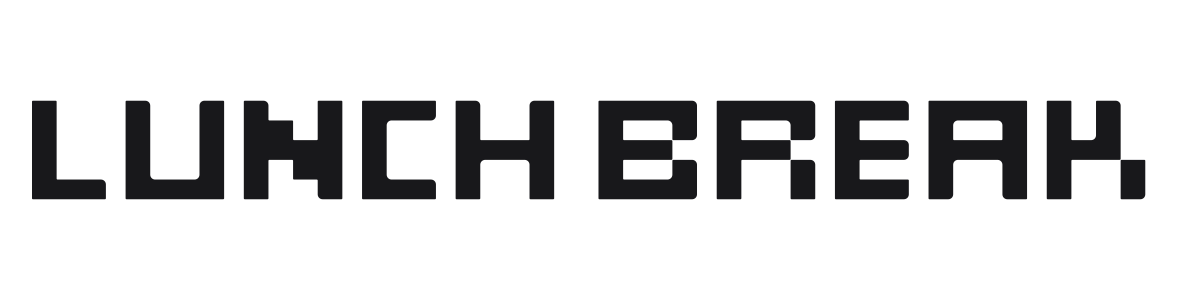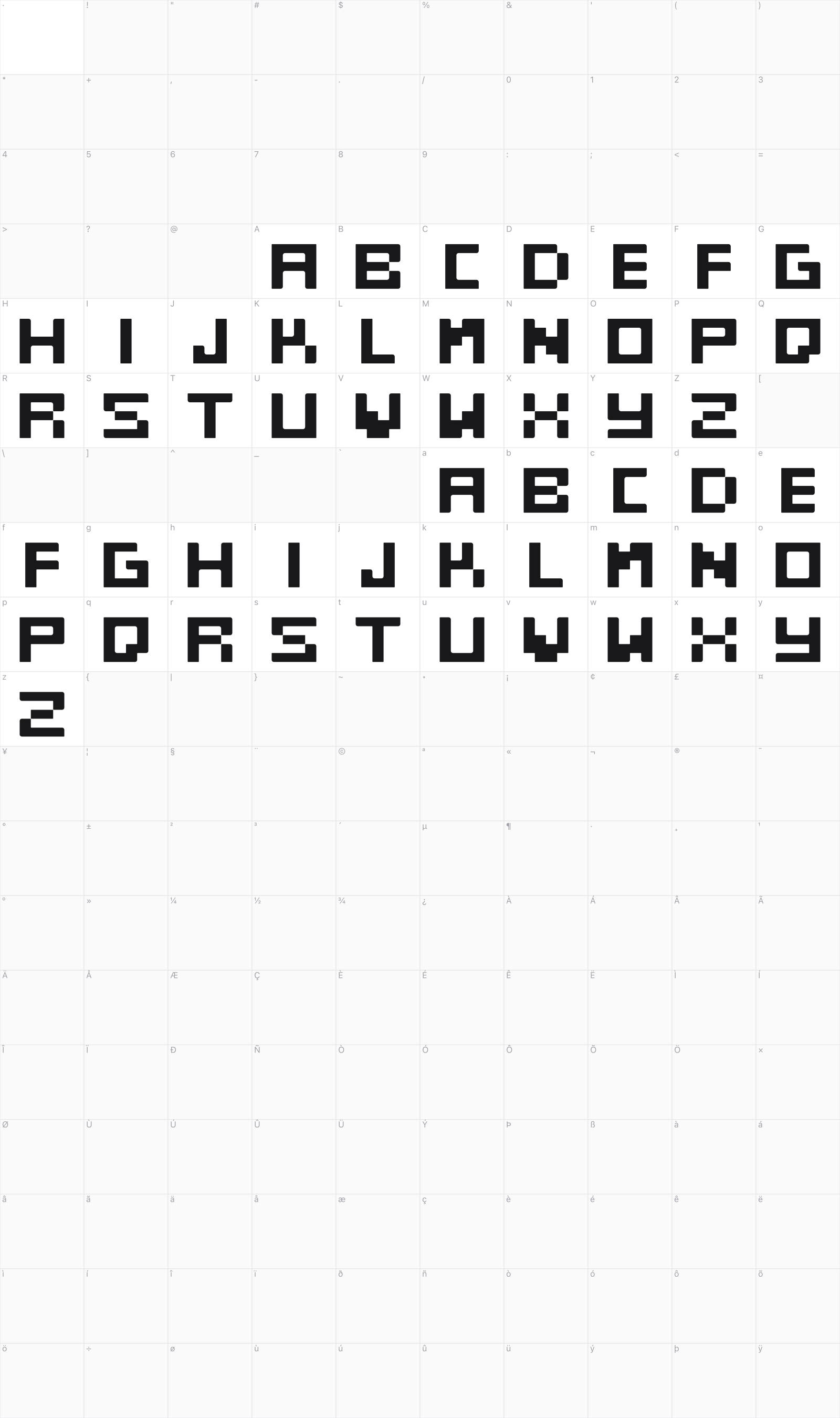
Lunch Break
Lunch Break is a chunky pixel font by Paul Kritzmire with bold, blocky uppercase letterforms built on a rigid geometric grid. The characters have that unmistakable low-resolution charm of early digital displays, landing firmly in retro computing and 8-bit territory. Best kept to headlines and short text where the heavy, bitmapped construction reads as intentional rather than limiting.